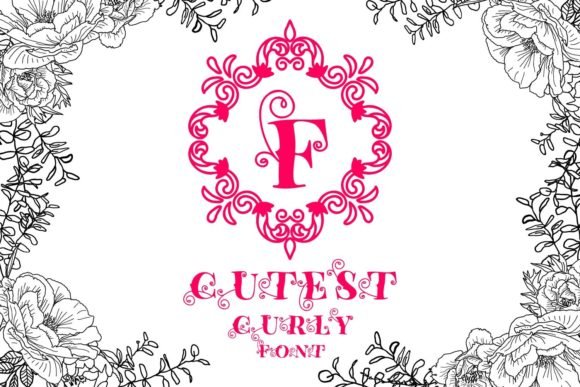
Introduction to Cutest Curly Font Monogram Font
Cutest Curly Font Monogram is a chic and whimsical display font.
Whether you use it for cartoon related designs, children games or just any creation that requires a lovely touch, this font will be an amazing choice .
Cutest Curly Font Monogram Font offers exceptional quality and versatility, making it a valuable addition to your design toolkit. Whether you’re creating for personal projects or commercial use, Cutest Curly Font Monogram Font delivers professional results.